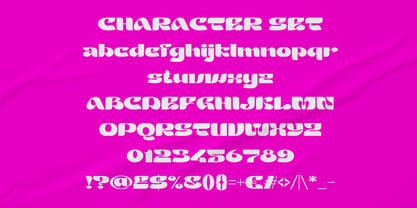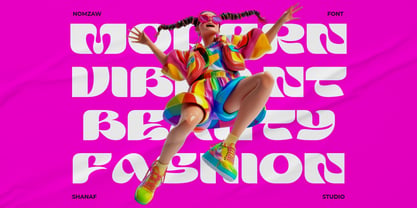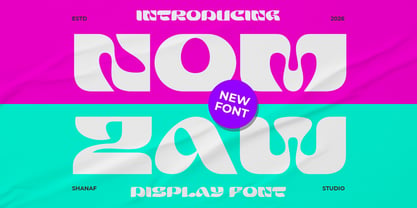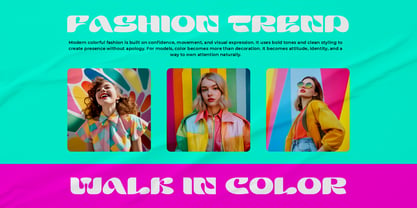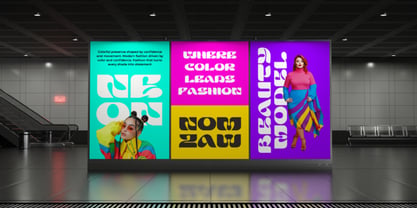
Nomza
by Shanaf
The Nomza Font Family was designed by Yesie Erma Yunita and published by Shanaf. Nomza contains 1 styles. More about this family
Designers: Yesie Erma Yunita
Foundry: Shanaf
Nomza